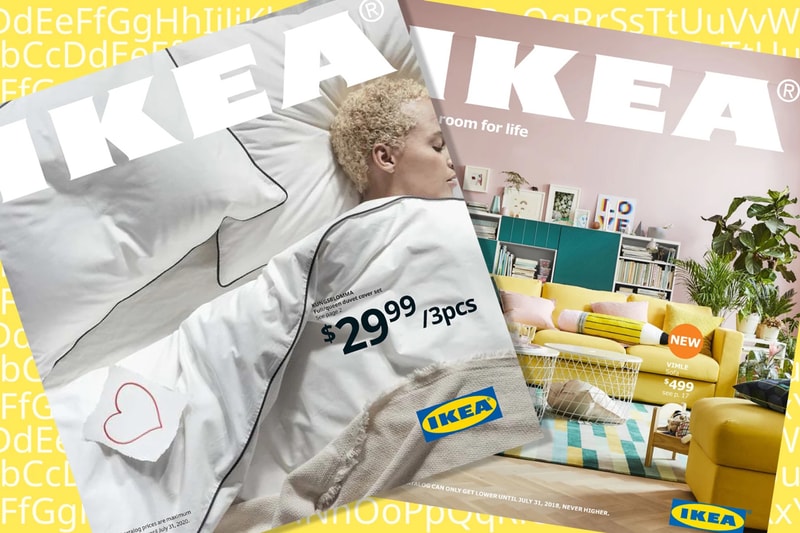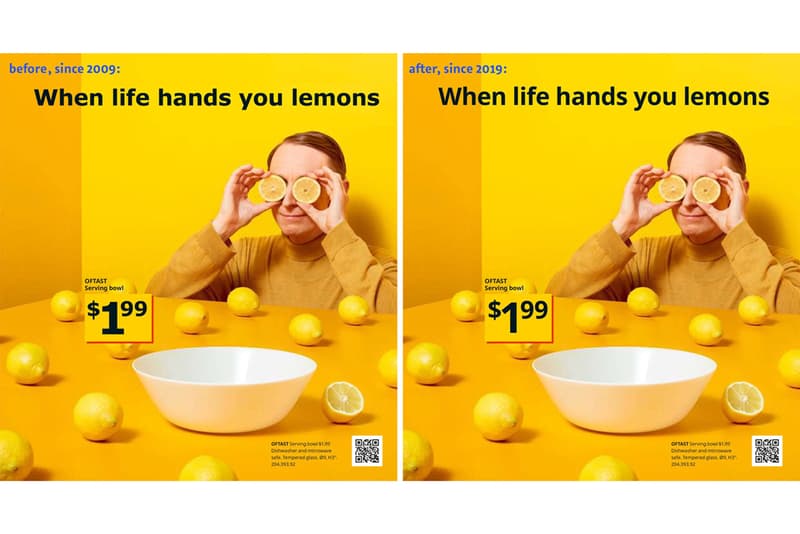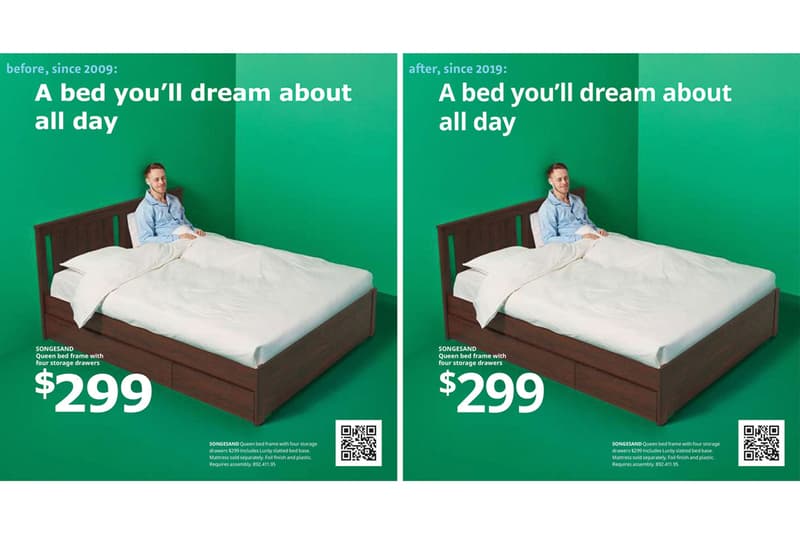
IKEA Changes Brand Typeface to Support 800 Different Languages
After using Verdana for a decade.
After using Verdana across its visual identities for a decade, IKEA now switches its brand typeface to Noto — a type designed by Google and Monotype back in October 2016. Prior to 2009, the furniture giant used Ikea Sans which is an adaptation of Futura for 50 years. The company then switched it to Verdana because its namesake font wasn’t capable of using Asian characters.
What’s more, the new typeface is capable of supporting over 800 different languages so that it can be used at international locations. It’s especially lauded as the most universal typeface yet with its name standing for “No Tofu” – tofu is a slang term to describe the little squares that pop up when a font isn’t supported by a computer.
IKEA and its 422 stores worldwide are currently replacing labels with Noto as well as updating its own logo for better mobile appearance as depicted in the catalog above.